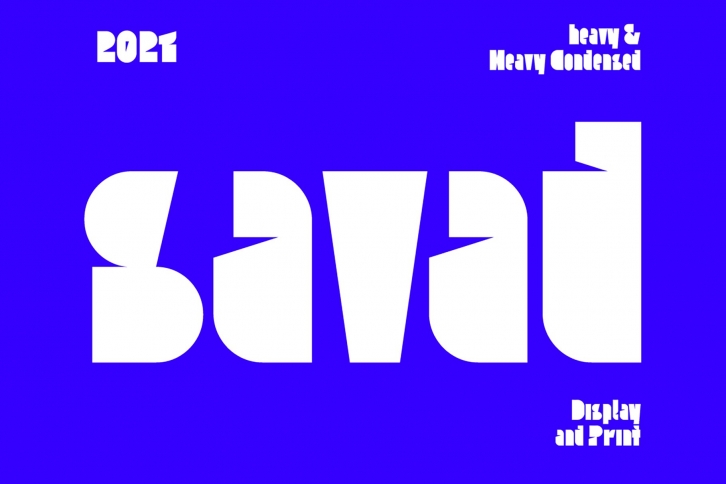
Savad is an Arabic-Persian word meaning darkness and blackness. Savad is a geometric approach to Latin letters designed for large headlines and clear titles that are selfish and ostentatious. In this font, priority has been given to the aesthetic-familiar approach, and readability is secondary.
There are many graphic designers in the world who need black and heavy fonts for their headlines that have clean and geometric forms, Savad tries to cover this need.
Savad has a variable font that condenses up to ten degrees of letters, which is suitable for adjusting the letters based on the available space.